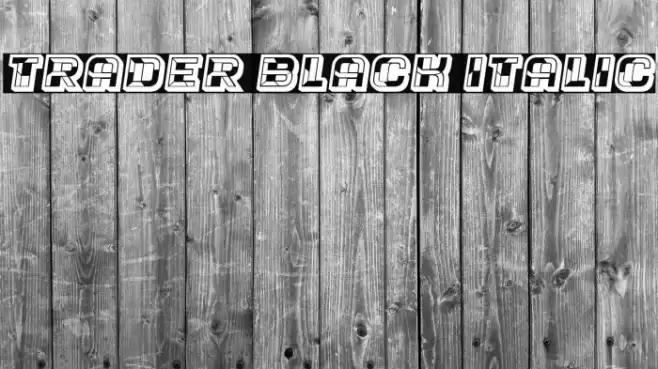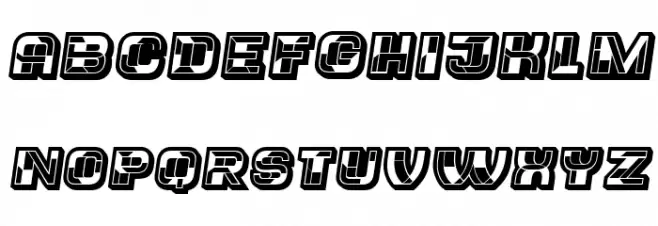
Trader Black Italic Font
Trader Black Italic Description
This font features a bold and dynamic style with a distinct italic slant, giving it a sense of movement and energy. The characters are outlined with a thick black border, creating a striking contrast against the inner white space. This design choice enhances readability while maintaining a unique and eye-catching appearance. The font's geometric shapes and sharp angles contribute to its modern and edgy aesthetic, making it suitable for projects that require a bold statement. Its strong presence and visual impact make it ideal for headlines, posters, and branding materials.
A bold, italic font with thick outlines and a modern, dynamic style from Uncategorized fonts.